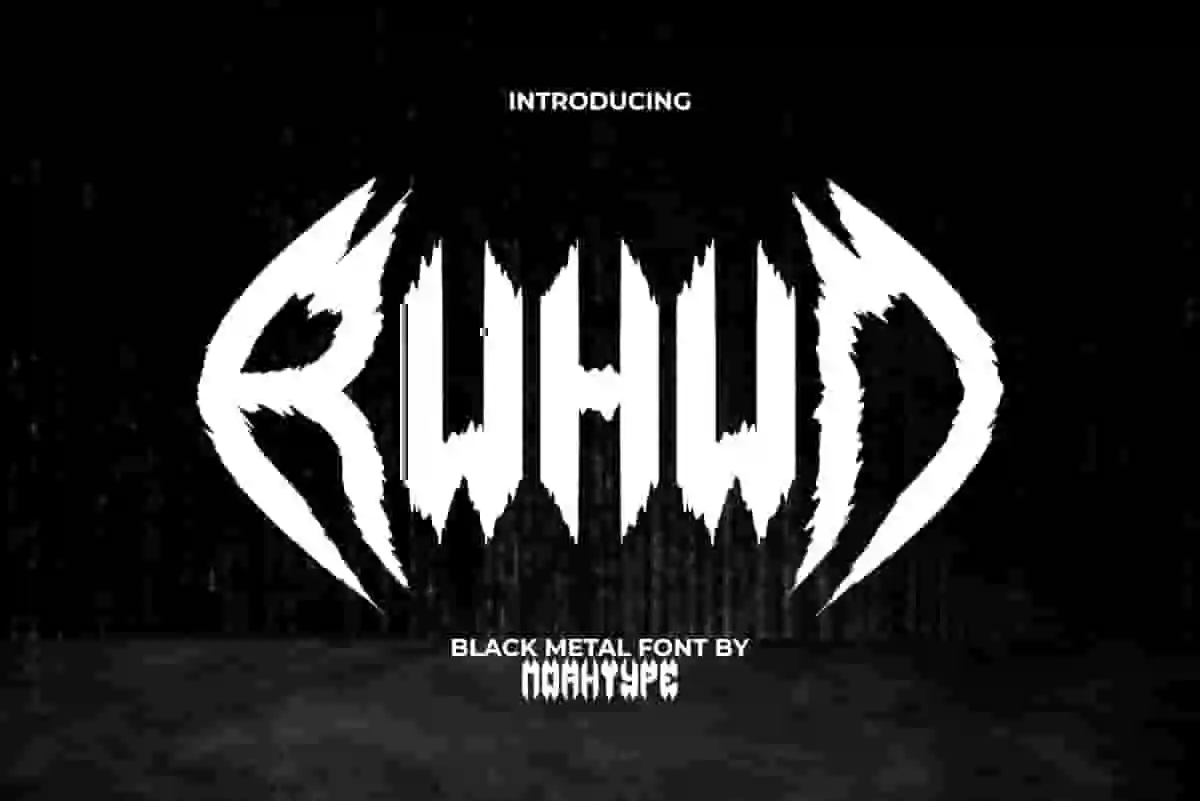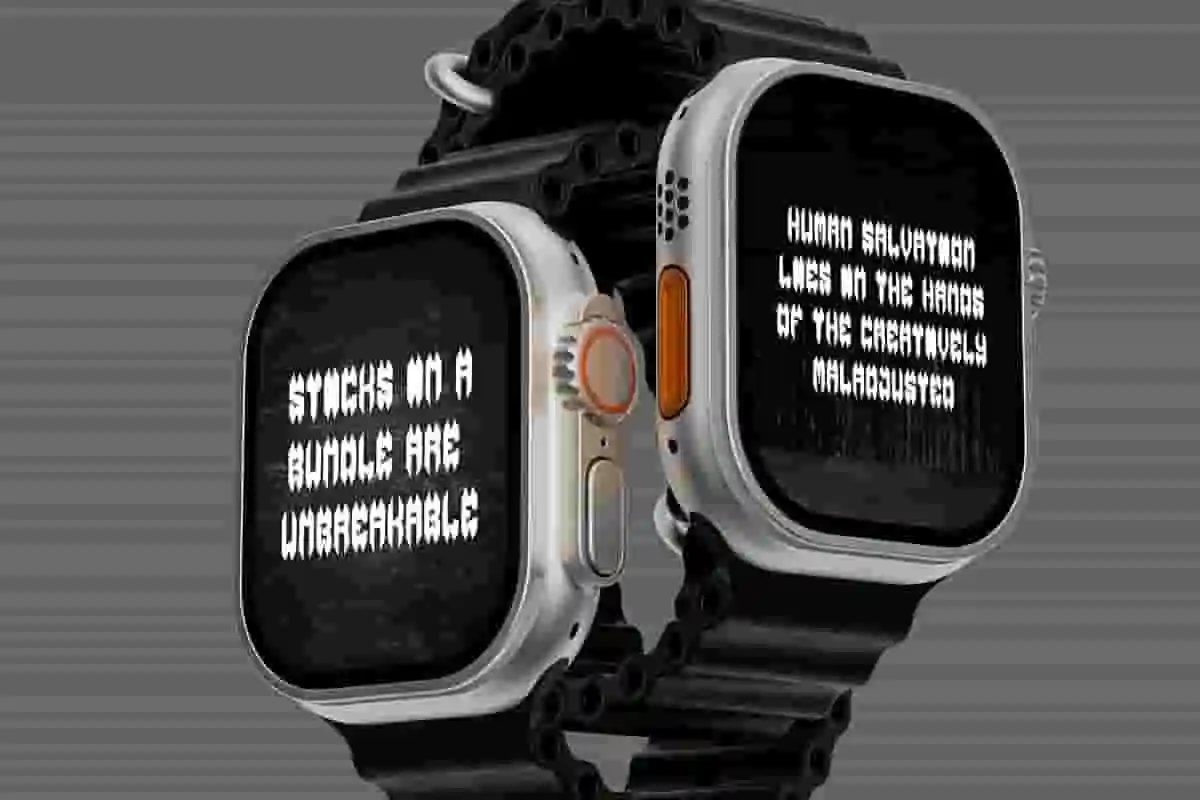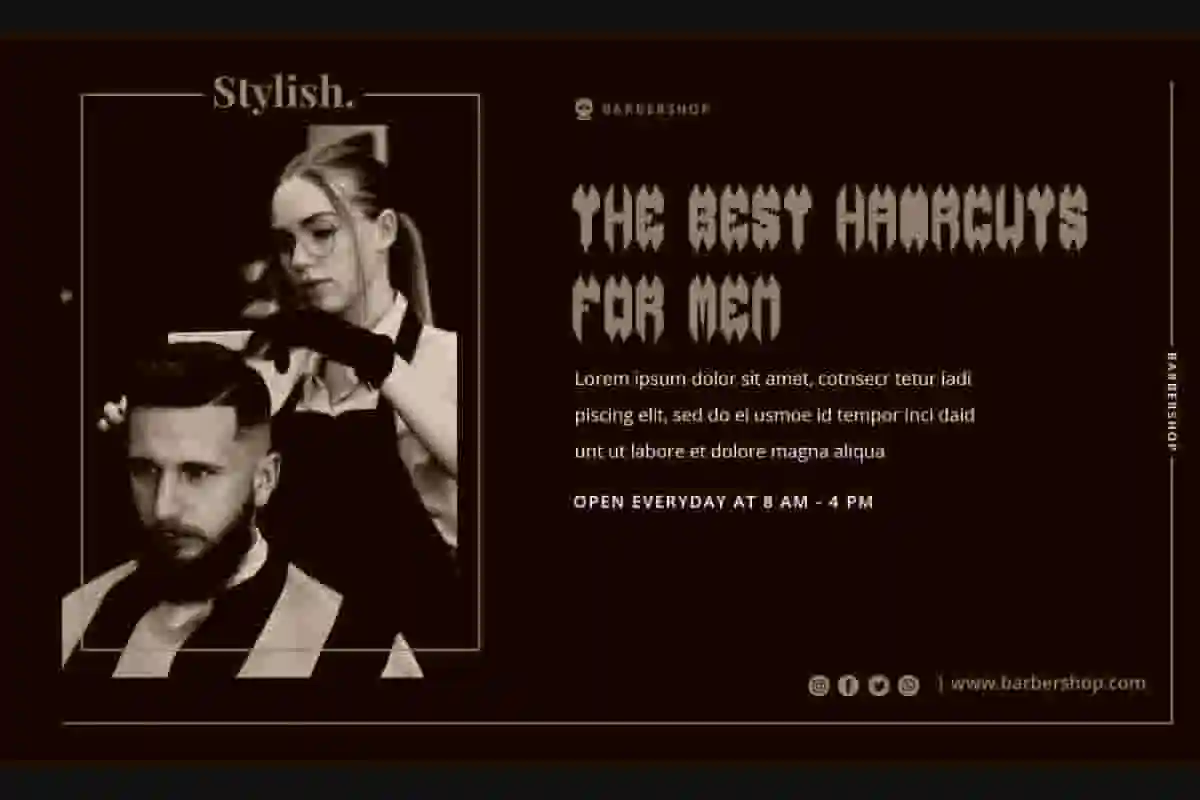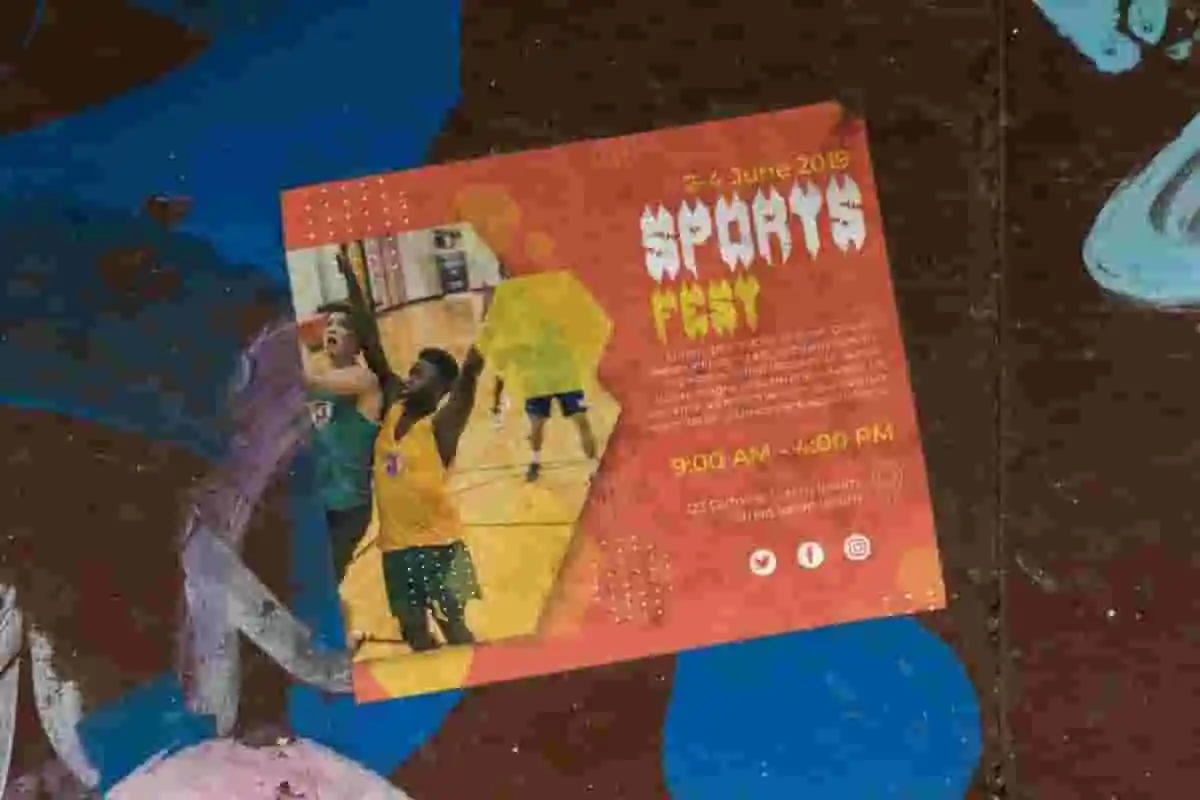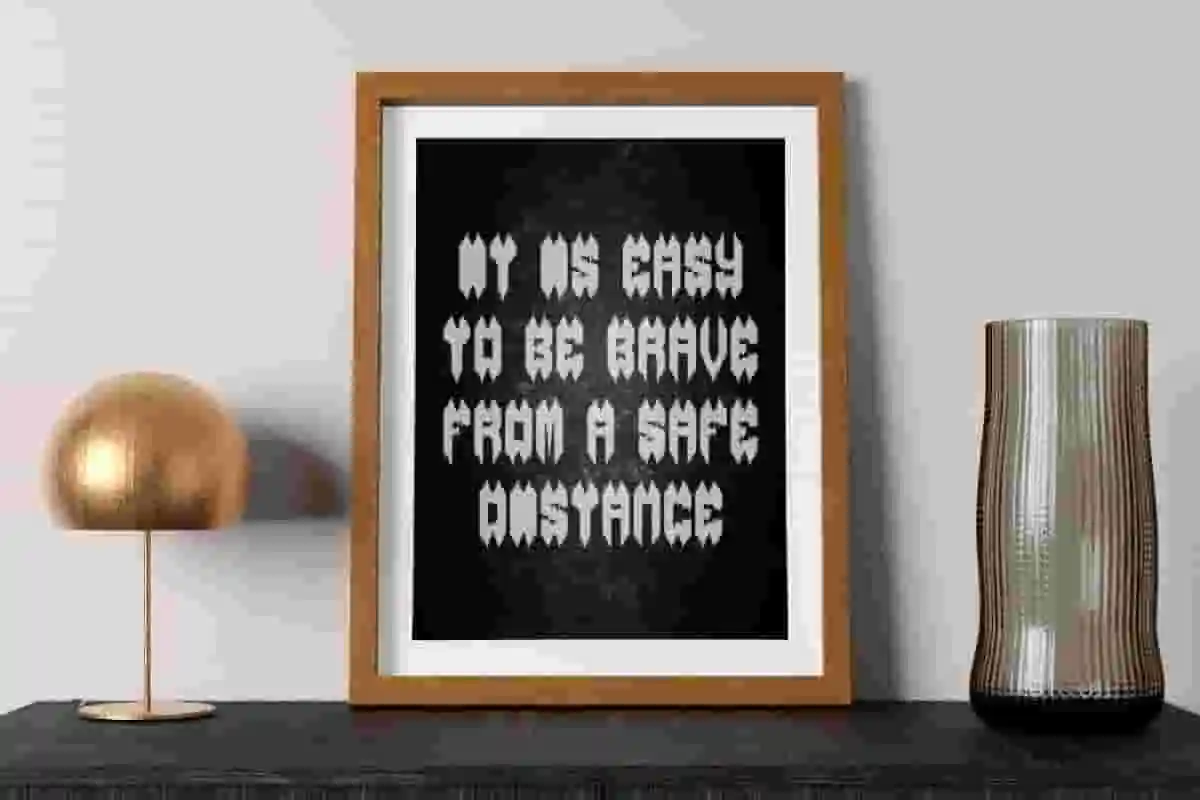
Ruhun Font is a dark and harsh Black Metal font by NoahType. This font has a scary appearance with sharp thorns along the characters. It will be awesome for any designs, such as custom design, brand image, poster, label, invitation, cover, marketing material, menu, printing, product packaging, quotes, signage, website, and many more!
Ruhun Font includes full set of ALL CAPS for Uppercase and Lowercase Basic Characters, Numerals, Punctuation, Symbol, and Alternate Character. This strong font will make your design cool and also a perfect choice for many industries, such as game, movie, comic, music, accessories, advertising, art, café, event or festival, fashion, printing, publishing, etc.